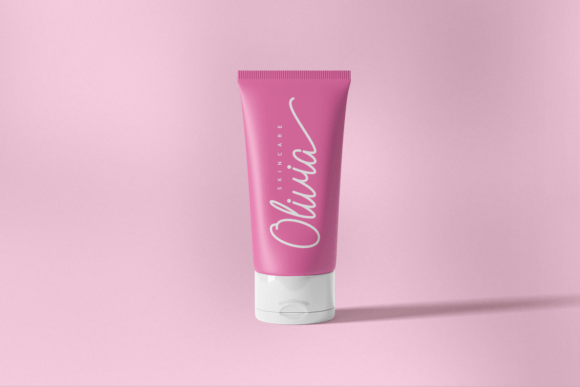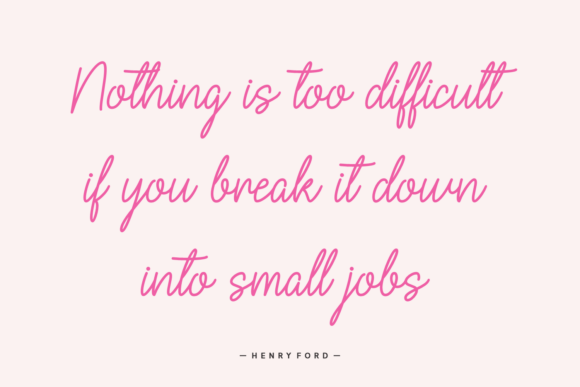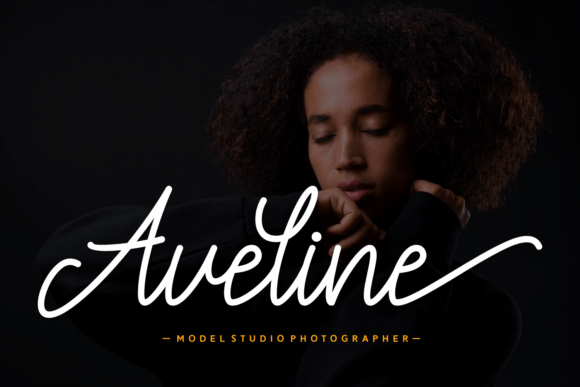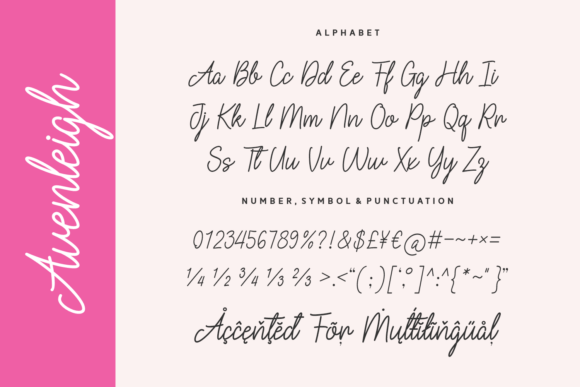
Avenleigh Font: The Perfect Choice for Elegant and Sincere Designs
In the world of typography, fonts play a crucial role in conveying emotions and personality. Avenleigh Font is a beautiful, light, and lovely monoline script font that has captured the hearts of designers and crafters alike. With its unique blend of traditional warmth and modern flair, Avenleigh is the perfect choice for creating elegant and sincere designs.
The Characteristics of Avenleigh Font
Avenleigh Font boasts a clean monoline structure, which gives it a fresh and modern look. Its flowing lines and gentle curves evoke a sense of sincerity and charm, making it ideal for a wide range of design projects. The font’s subtle bounce and fluid movements bring a sense of warmth and personality to any design, making it perfect for projects that require a personal touch.
Ideal Uses for Avenleigh Font
Avenleigh Font is a versatile font that can be used in various design projects. Some of the ideal uses for Avenleigh include:
- Baby Designs: Avenleigh’s sweet and gentle curves make it perfect for baby-related designs, such as baby shower invitations, birth announcements, and nursery decor.
- Branding: Avenleigh’s elegant and sophisticated look makes it an excellent choice for branding projects, such as logos, business cards, and letterheads.
- Love Letters: Avenleigh’s romantic and sentimental feel makes it perfect for love letters, wedding invitations, and other romantic designs.
- Social Posts: Avenleigh’s clean and modern look makes it ideal for social media posts, such as Instagram captions, Facebook posts, and Twitter headers.
- Feminine Packaging: Avenleigh’s elegant and feminine look makes it perfect for packaging designs, such as product labels, packaging inserts, and gift wrapping paper.
What Makes Avenleigh Font Special?
Avenleigh Font stands out from other fonts due to its unique combination of characteristics. Here are some of the features that make Avenleigh special:
- Clean Monoline Structure: Avenleigh’s clean monoline structure gives it a fresh and modern look that’s perfect for designs that require a touch of elegance.
- Gentle Curves: Avenleigh’s gentle curves and flowing lines evoke a sense of sincerity and charm, making it perfect for designs that require a personal touch.
- Subtle Bounce: Avenleigh’s subtle bounce and fluid movements bring a sense of warmth and personality to any design, making it perfect for projects that require a human touch.
Tips for Using Avenleigh Font
Here are some tips for using Avenleigh Font in your design projects:
- Pair it with Other Fonts: Avenleigh Font pairs well with other fonts, such as sans-serif fonts, and script fonts. Experiment with different font combinations to find the perfect pairing for your design.
- Use it for Headings and Titles: Avenleigh Font is perfect for headings and titles due to its elegant and sophisticated look. Use it to add a touch of elegance to your designs.
- Experiment with Colors: Avenleigh Font looks great in a variety of colors, from soft pastels to bold and bright colors. Experiment with different colors to find the perfect look for your design.
Avenleigh Font is a beautiful and elegant monoline script font that’s perfect for designers and crafters who want to add a touch of warmth and personality to their designs. With its clean monoline structure, gentle curves, and subtle bounce, Avenleigh is ideal for a wide range of design projects, from baby designs to branding and packaging. Whether you’re looking for a font that’s elegant, sophisticated, or playful, Avenleigh Font is the perfect choice.